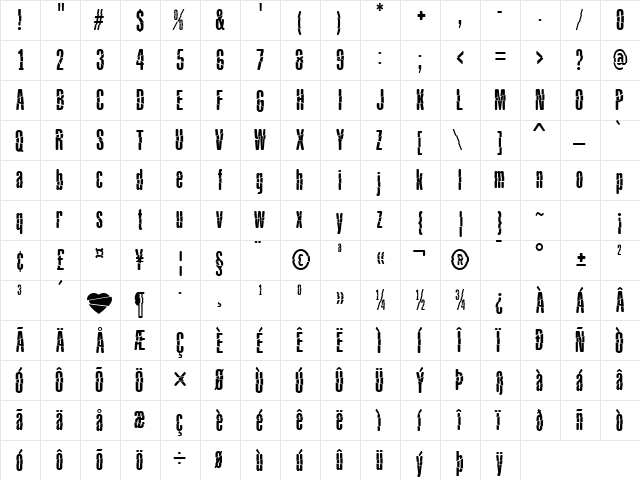
Babalusa Cut Regular
| Foundry | deFharo |
| Designer | deFharo |
Design Context for Babalusa Cut Typeface
Babalusa Cut is a composed and adaptable typeface that performs quietly and consistently across a wide range of design contexts.